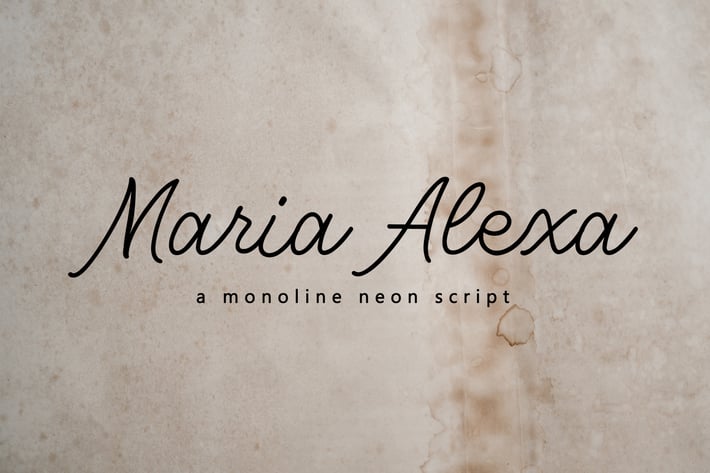
Maria Alexa - Elegant Handwritten Font
Maria Alexa - Elegant Handwritten Font - Monoline Signature Script - Wedding Font
The unique flow and easy handwritten style makes it perfect for wedding design, social media, feminine branding, greting cards, modern invitation design, branding, stationery design, blog design, modern advertising design, wedding invitation, Art Quote, Home decor, Book/Cover Title, Invitation, special events, birthday, custom mug, pillow, t-shirts, and any signature font needs and more or simply use it in your next design project.